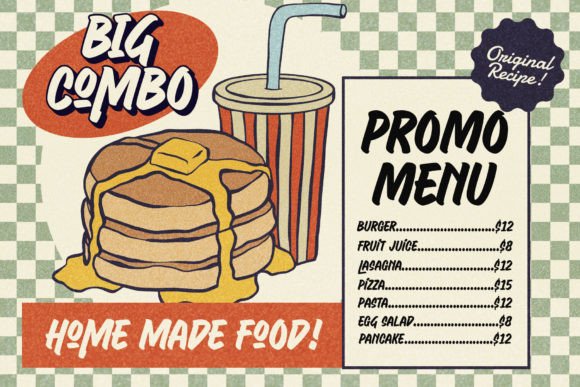
Signature Creation Font
Introducing “Signature Creation,” a nostalgic display font inspired by vintage sign painting. Representing craftsmanship, creativity, and movement. Immerse yourself in a wave of nostalgia with this font set, available in 5 distinct styles that harmoniously interact as layers: Regular, Inline, Shadow, Outline, and Extrude.